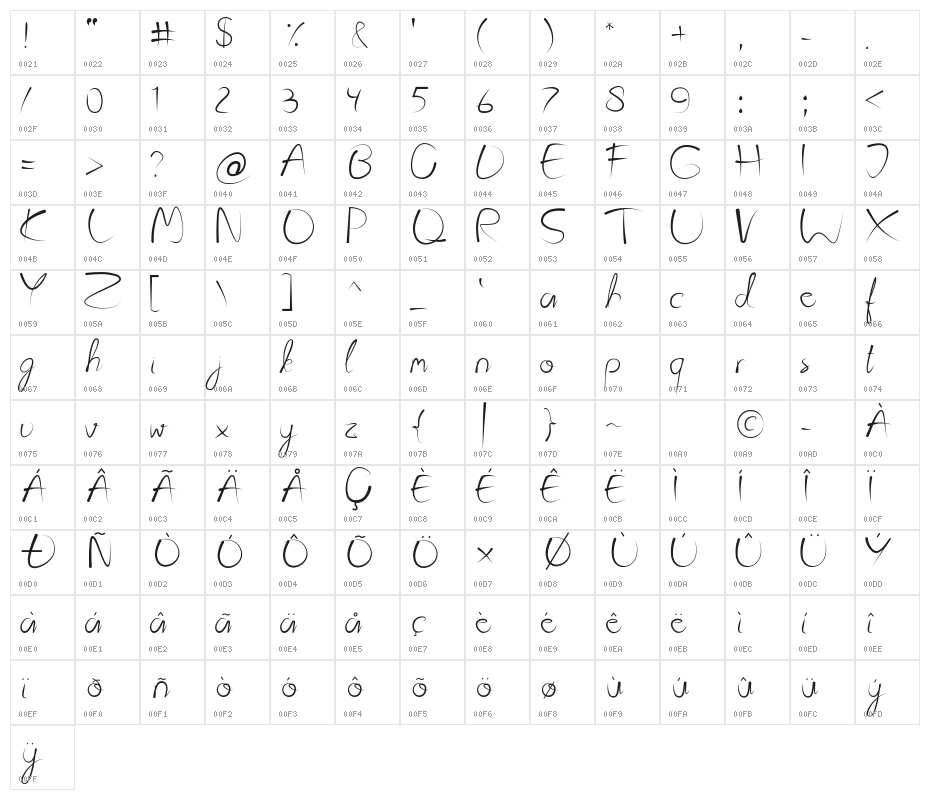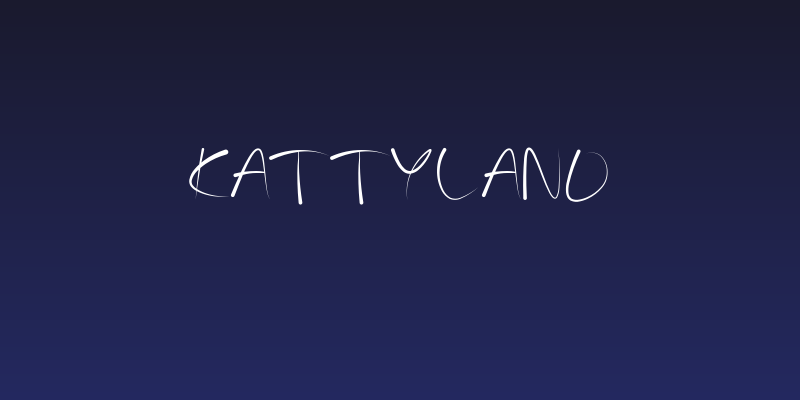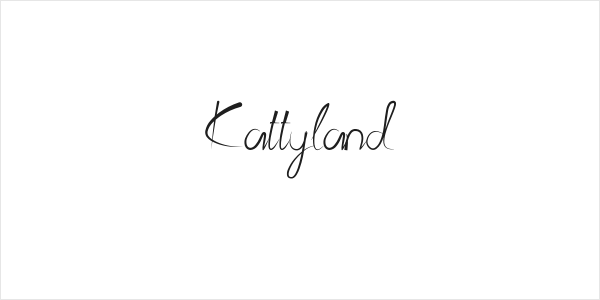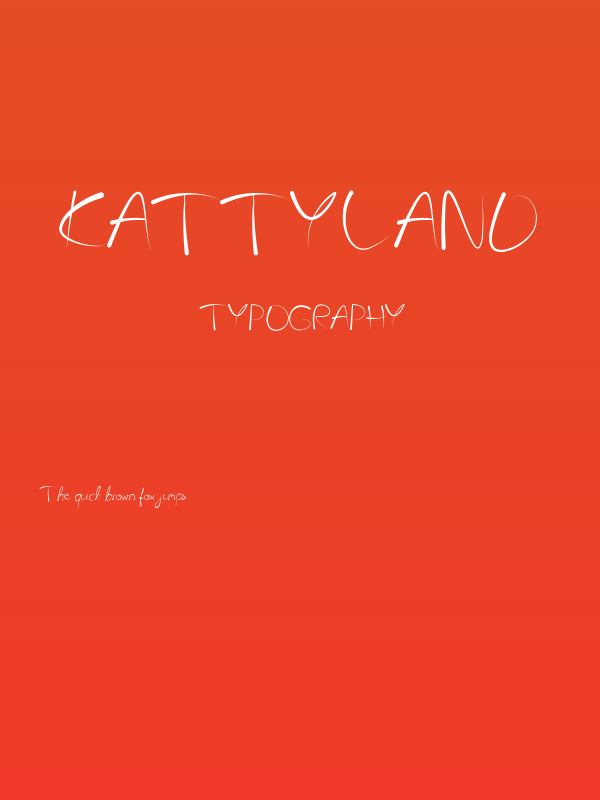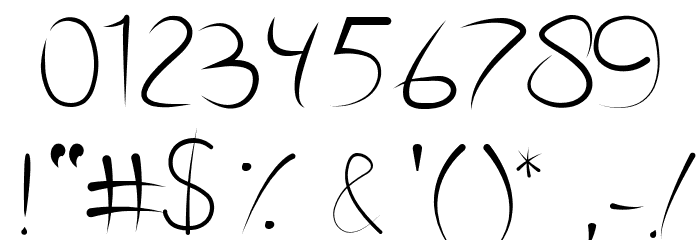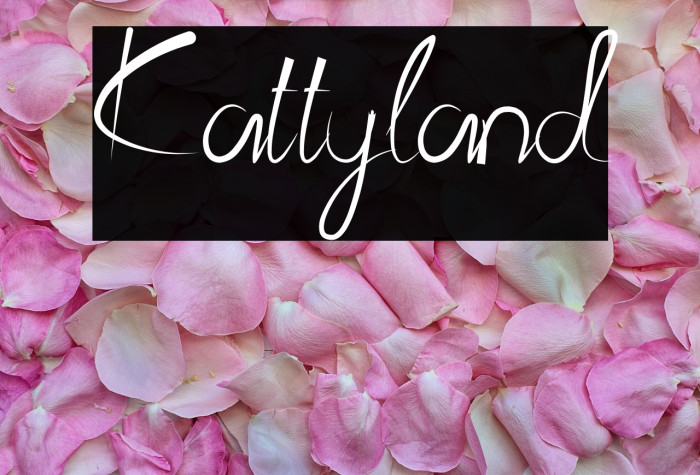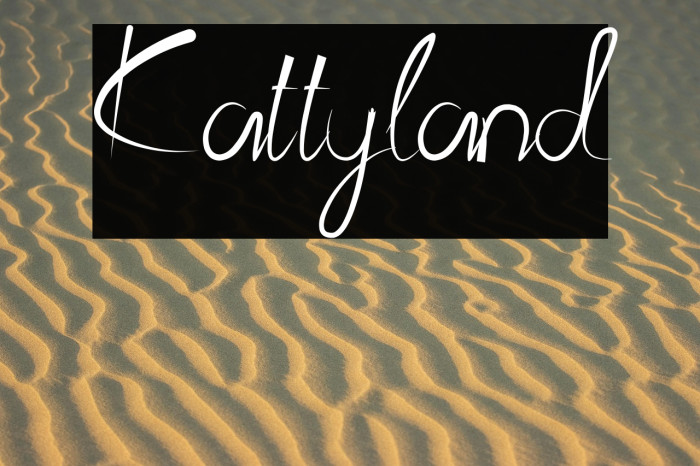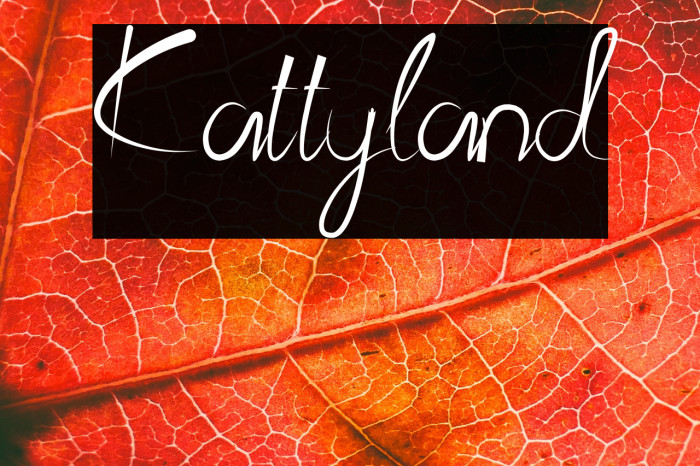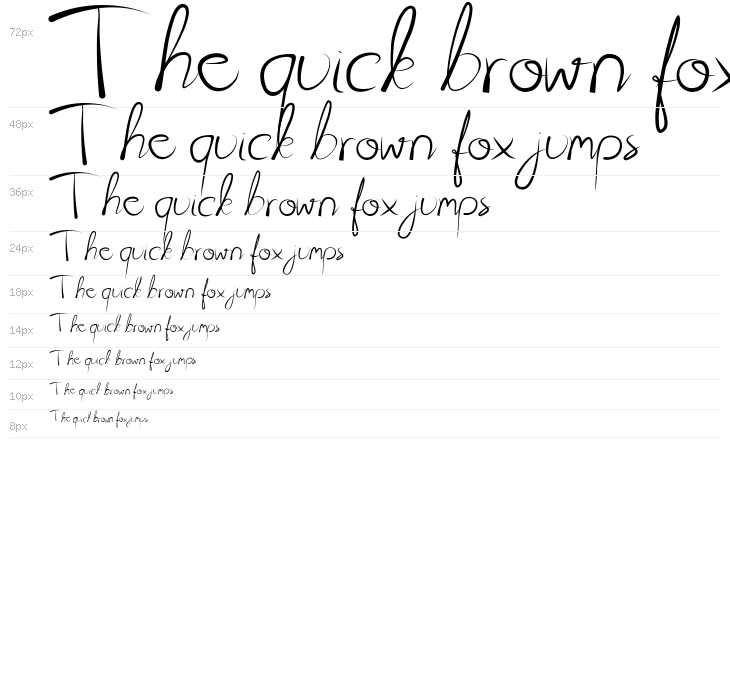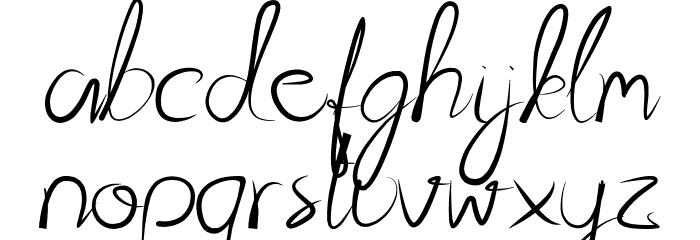
Kattyland Font
Kattyland Description
This font features a dynamic and flowing script style, characterized by its elegant and fluid strokes. The uppercase letters exhibit a graceful yet bold presence, with sweeping curves and a sense of movement. The lowercase letters maintain a cohesive style, offering a harmonious blend of loops and curves that create a sense of continuity. The numerals are distinct and maintain the same flowing aesthetic, ensuring readability while adding a touch of sophistication. The special characters complement the overall design, maintaining the same artistic flair. This font is ideal for projects that require a personal and artistic touch, such as invitations, branding, or creative headlines.